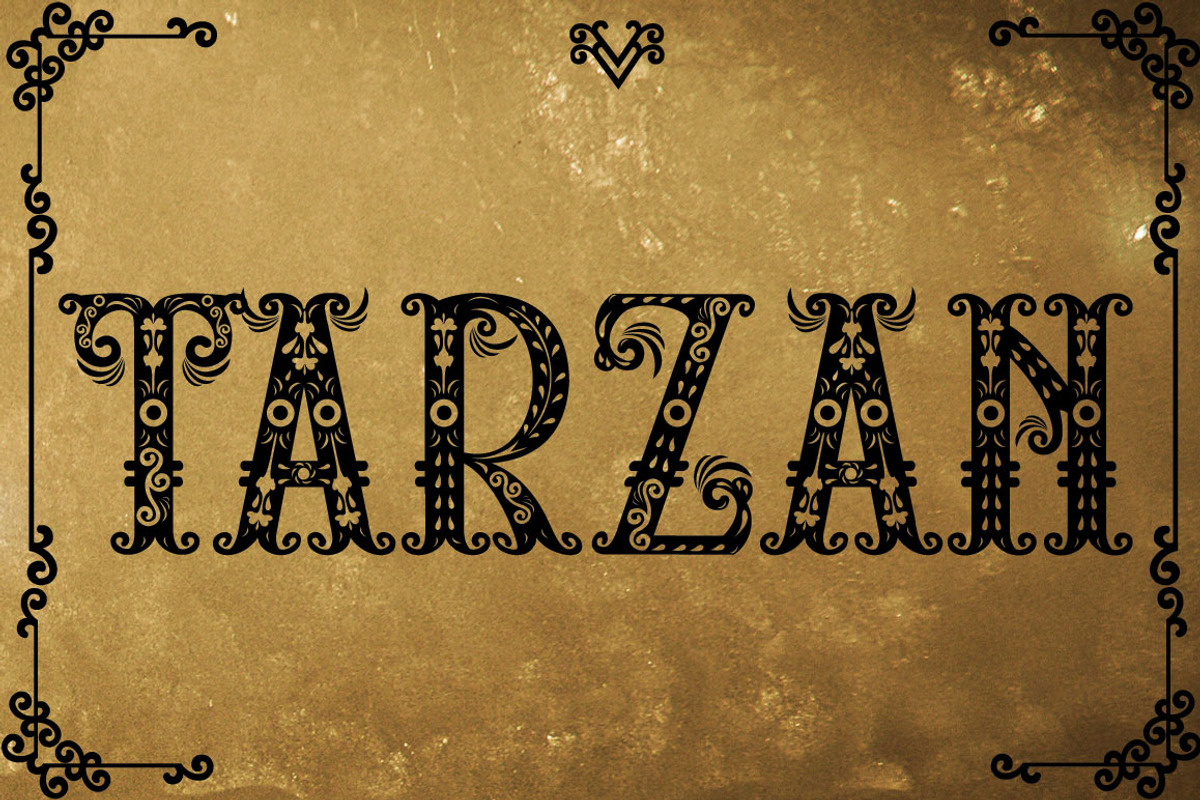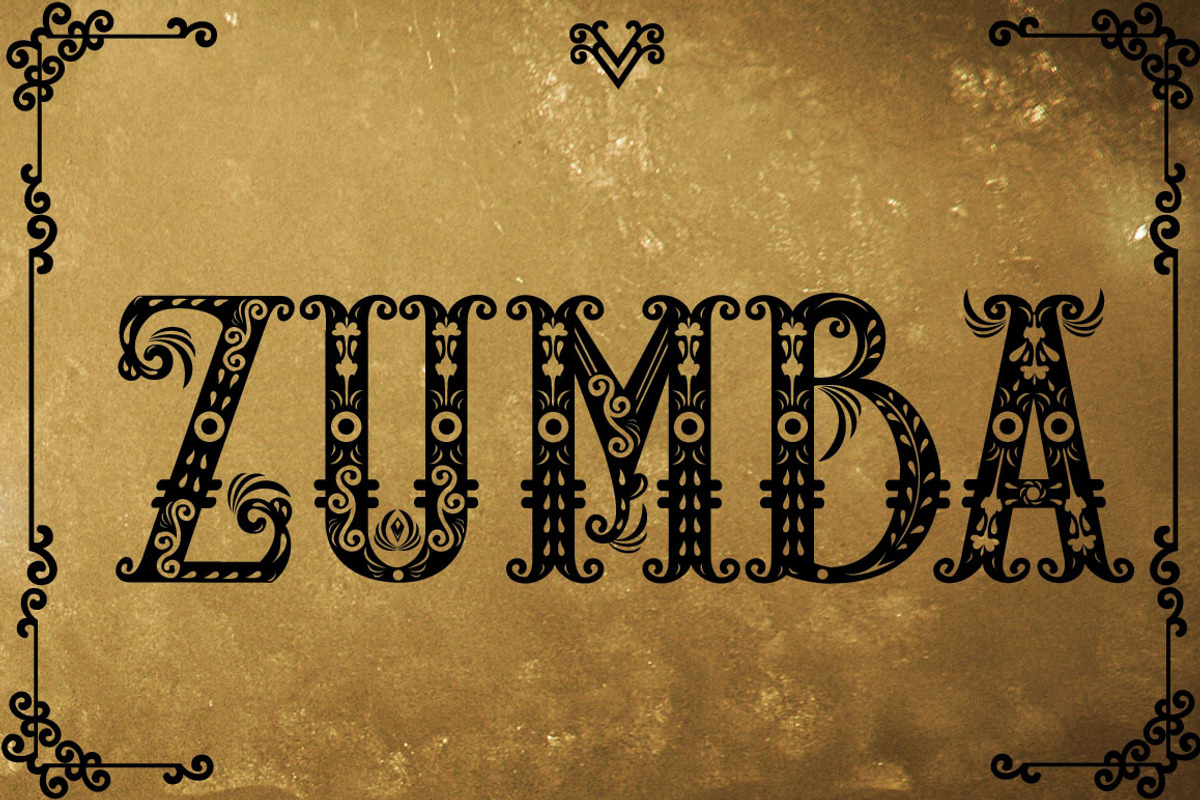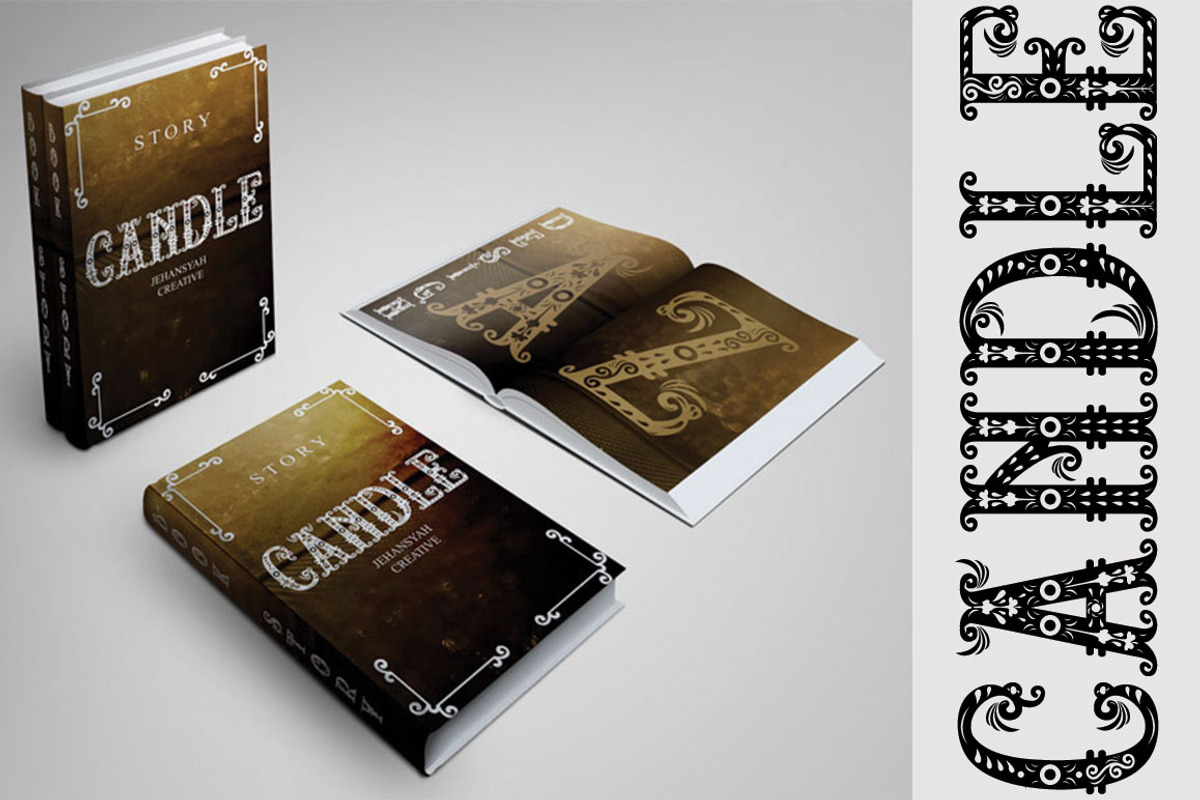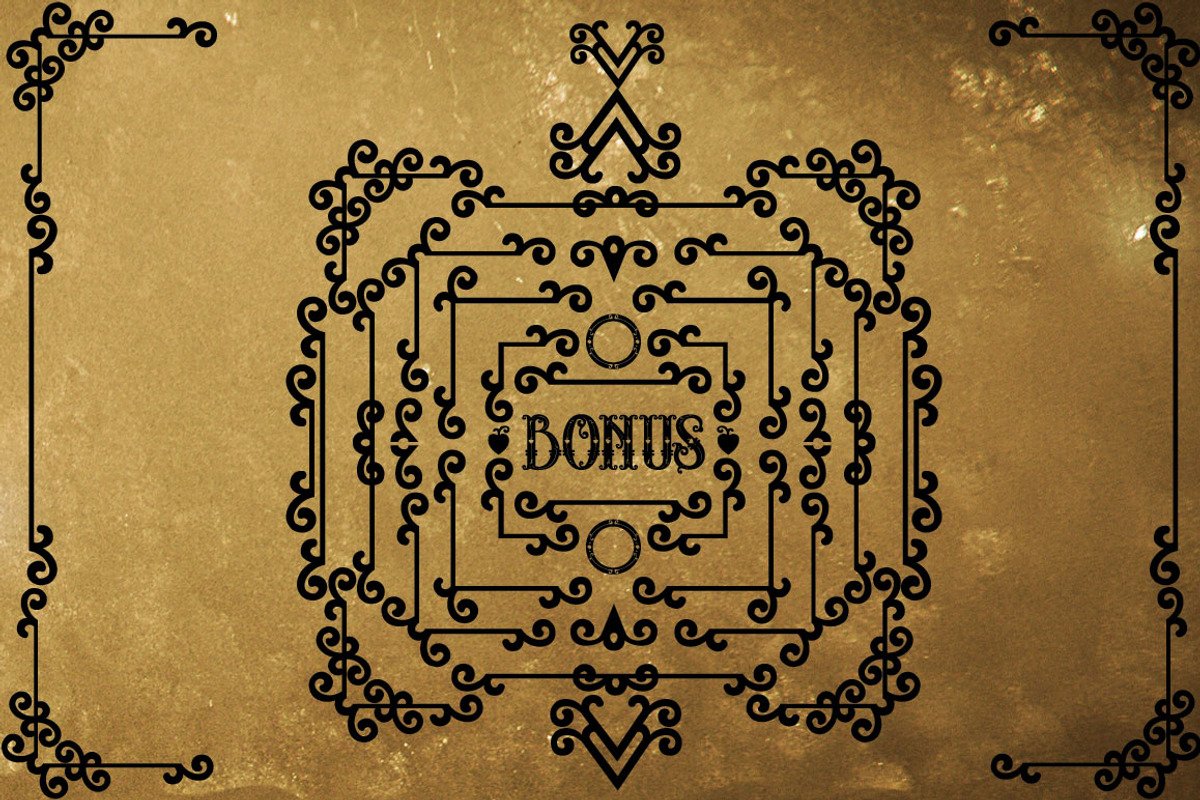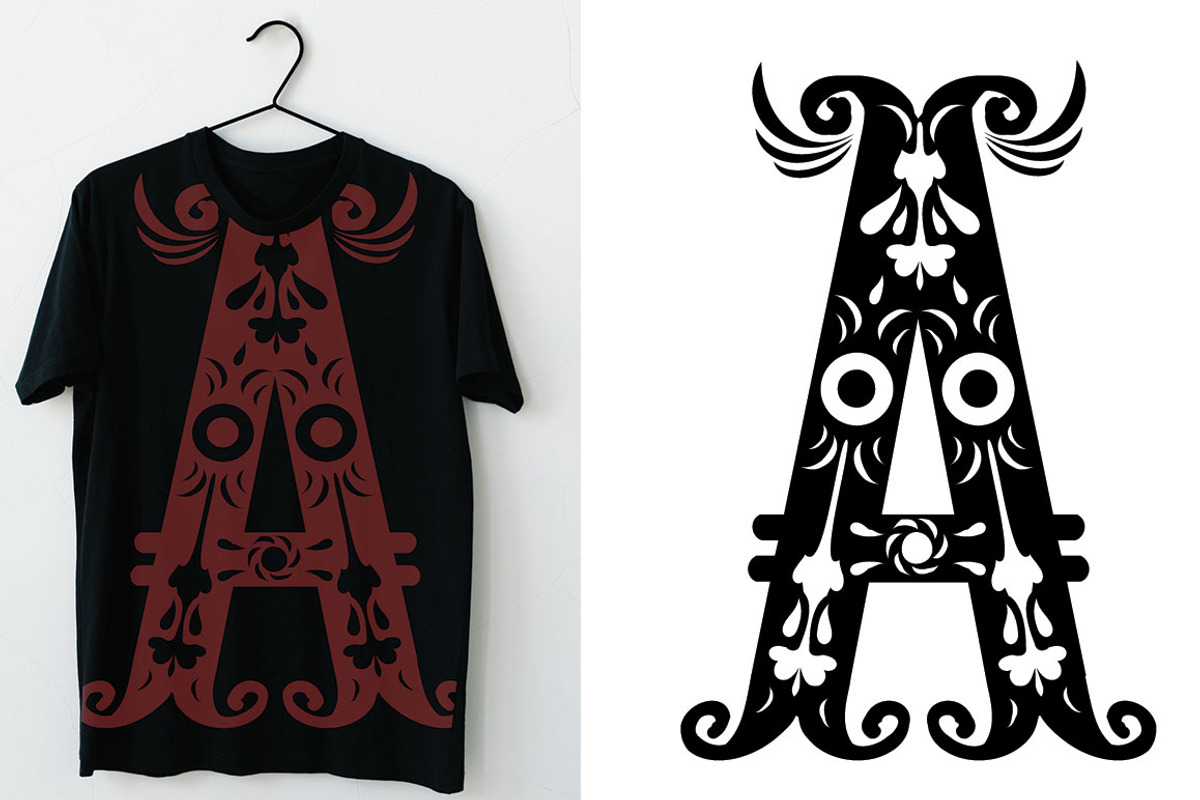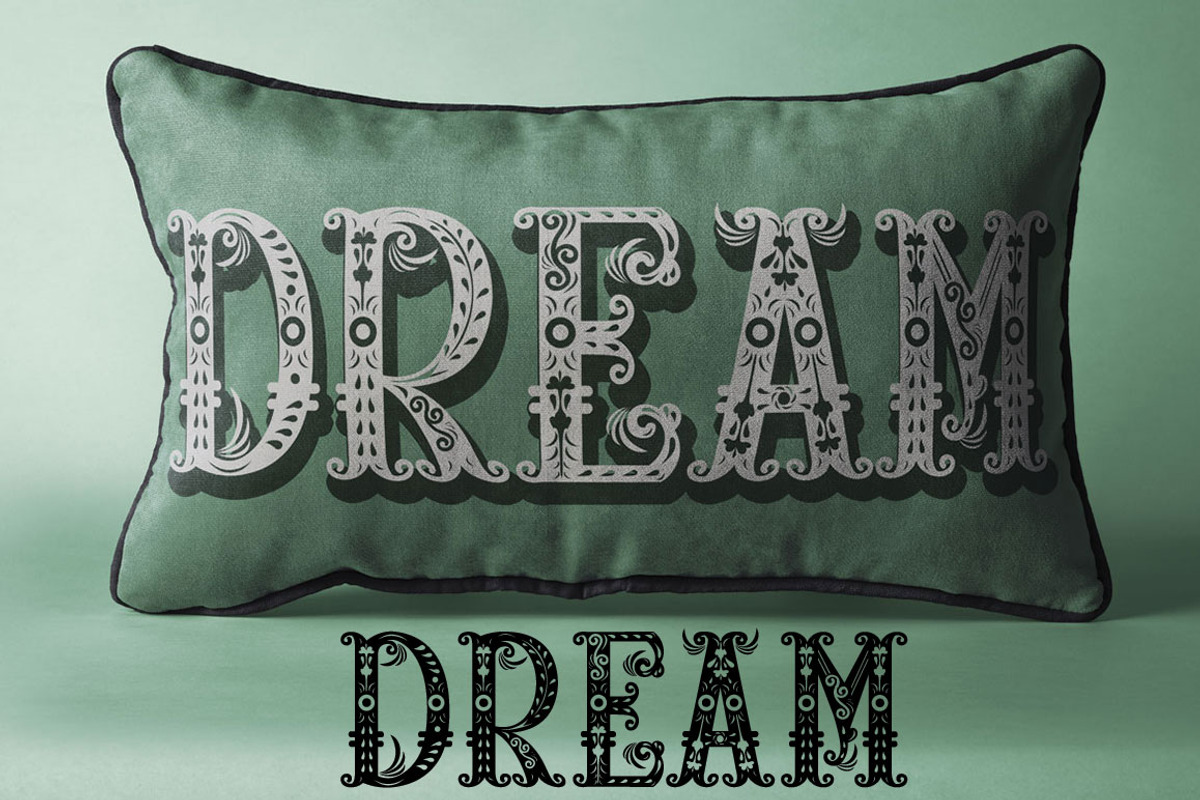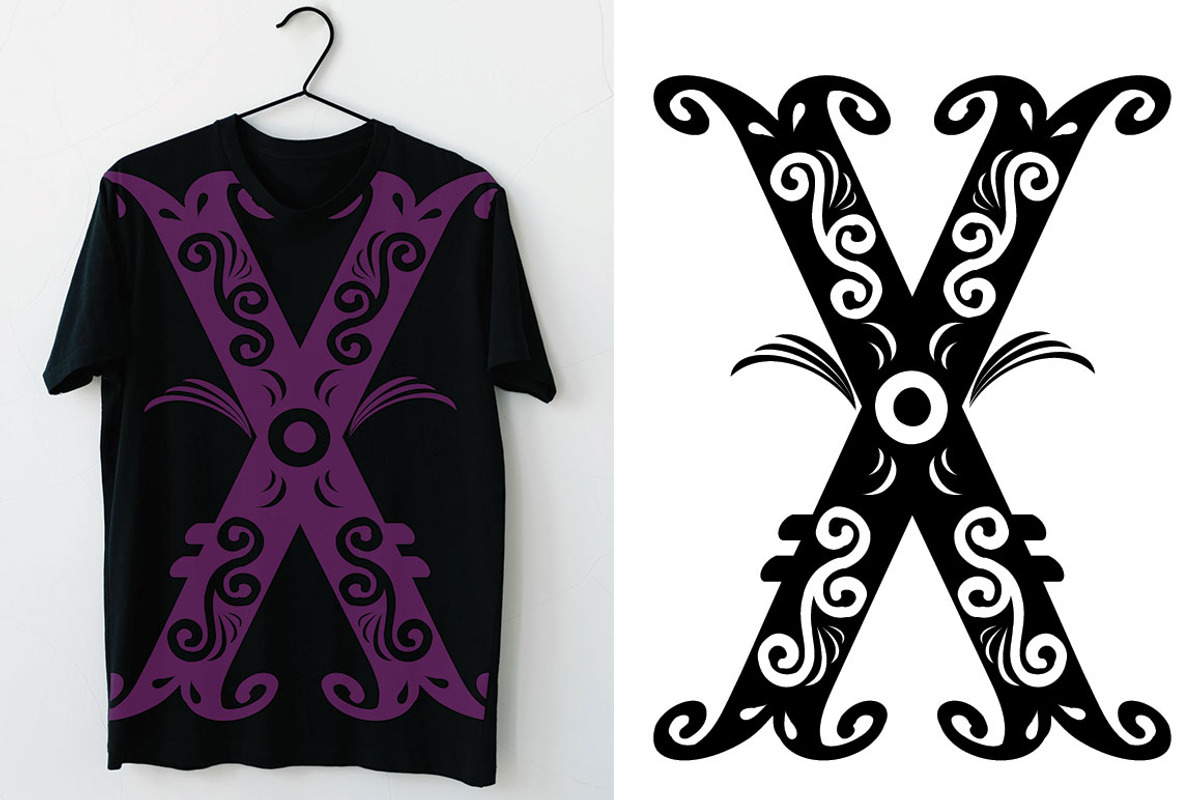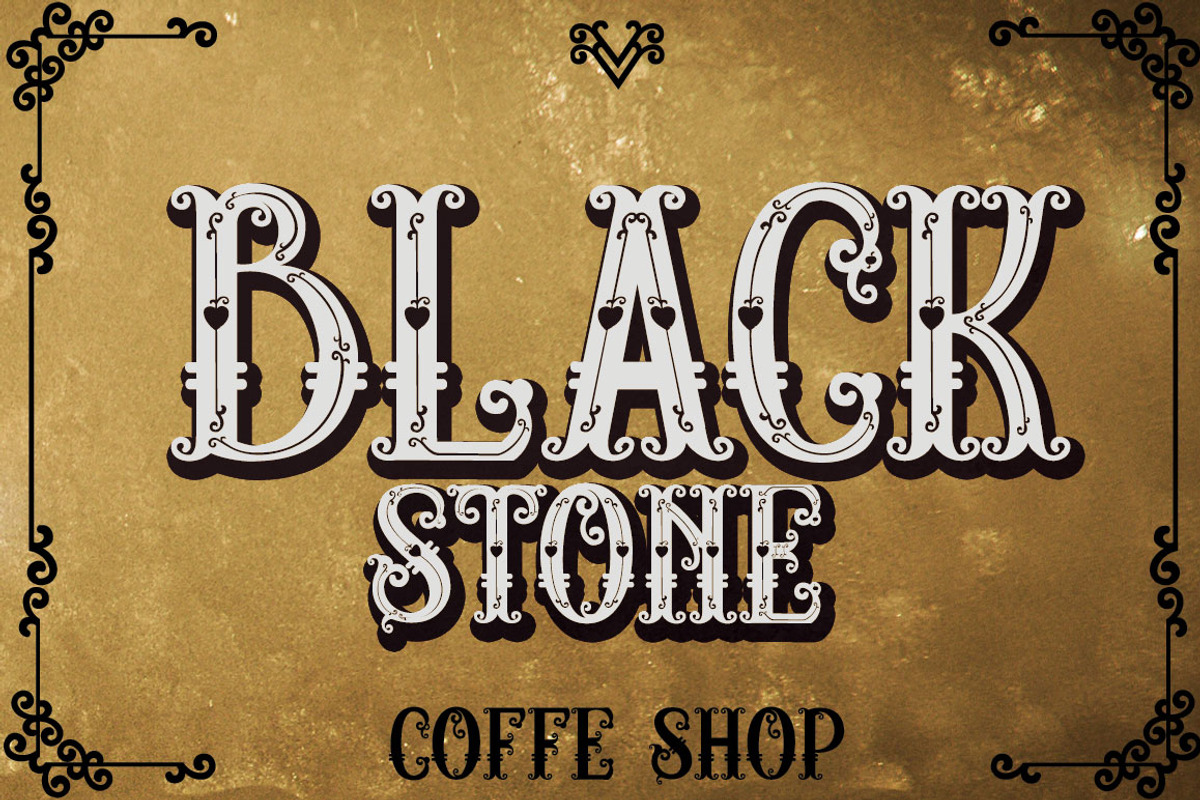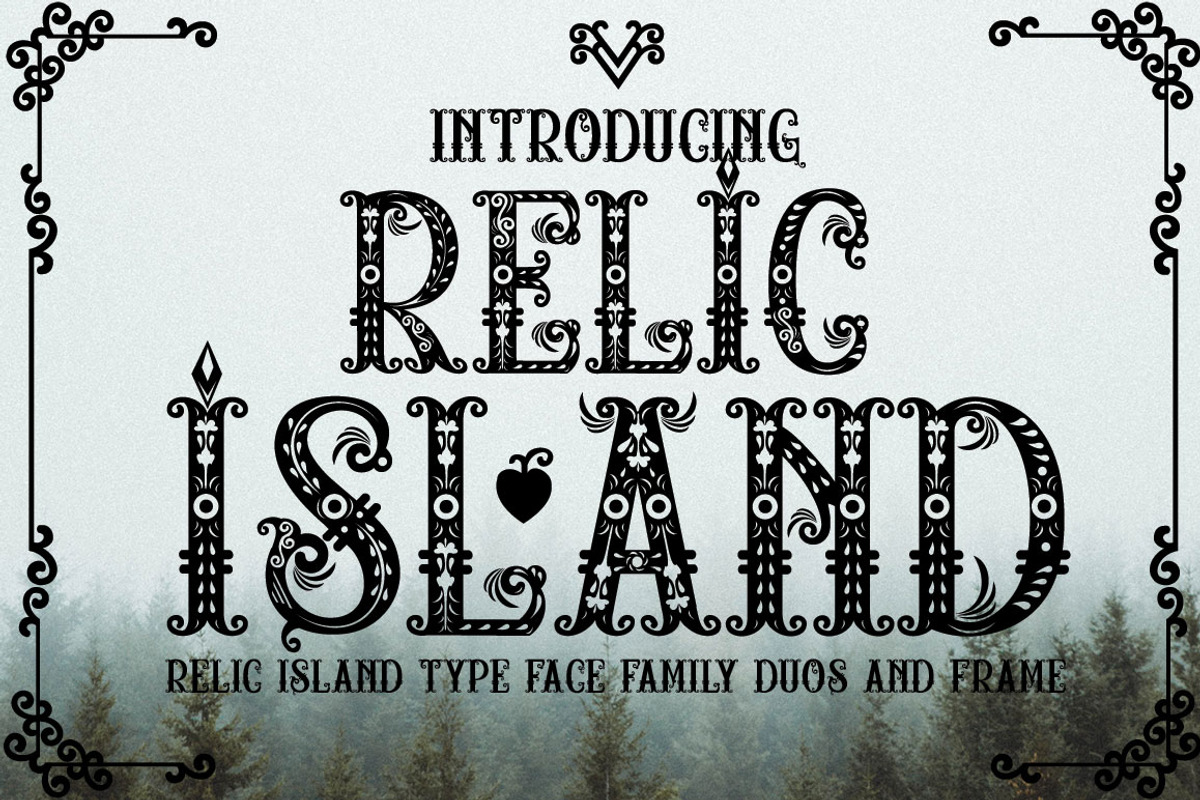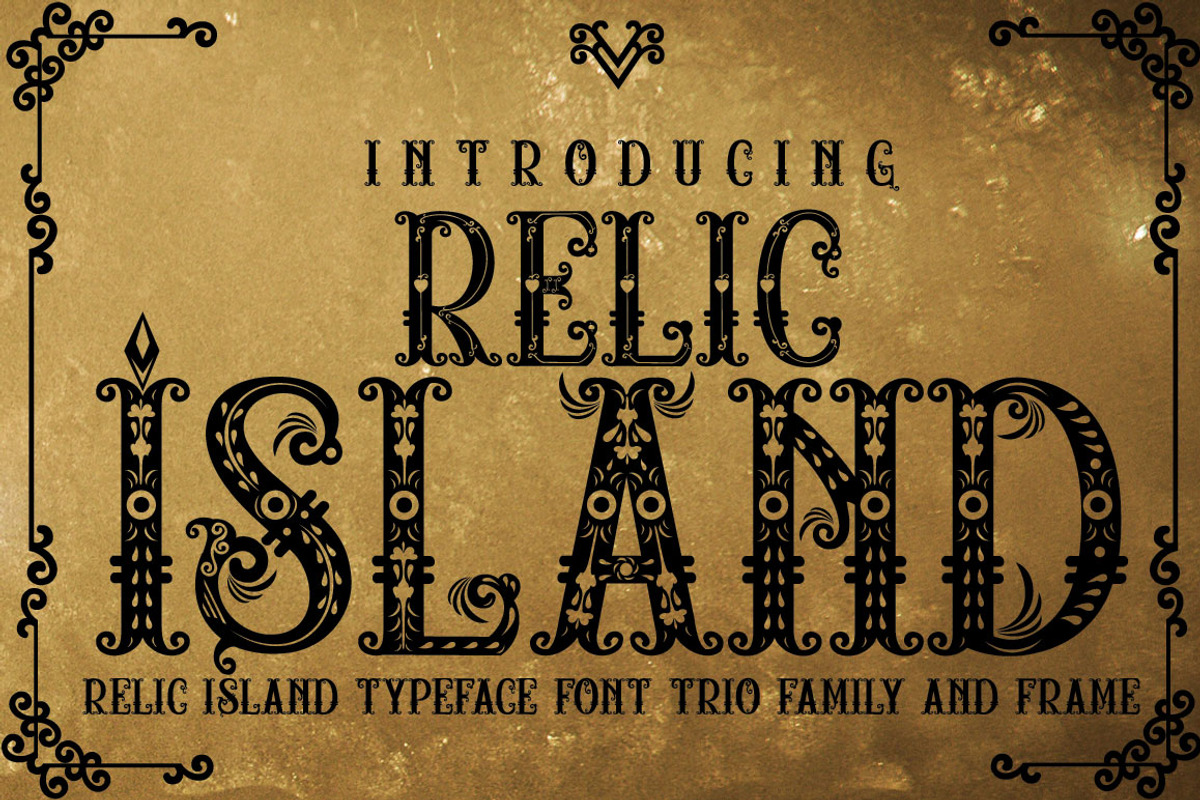
Relic Island
Relic Island This is an attractive font design that looks very old-fashioned and very bold, perfect for creating big titles, magazines, movies, opening social media, and other designs.
Relic Island inspired by inventions or items found in ancient stone carvings